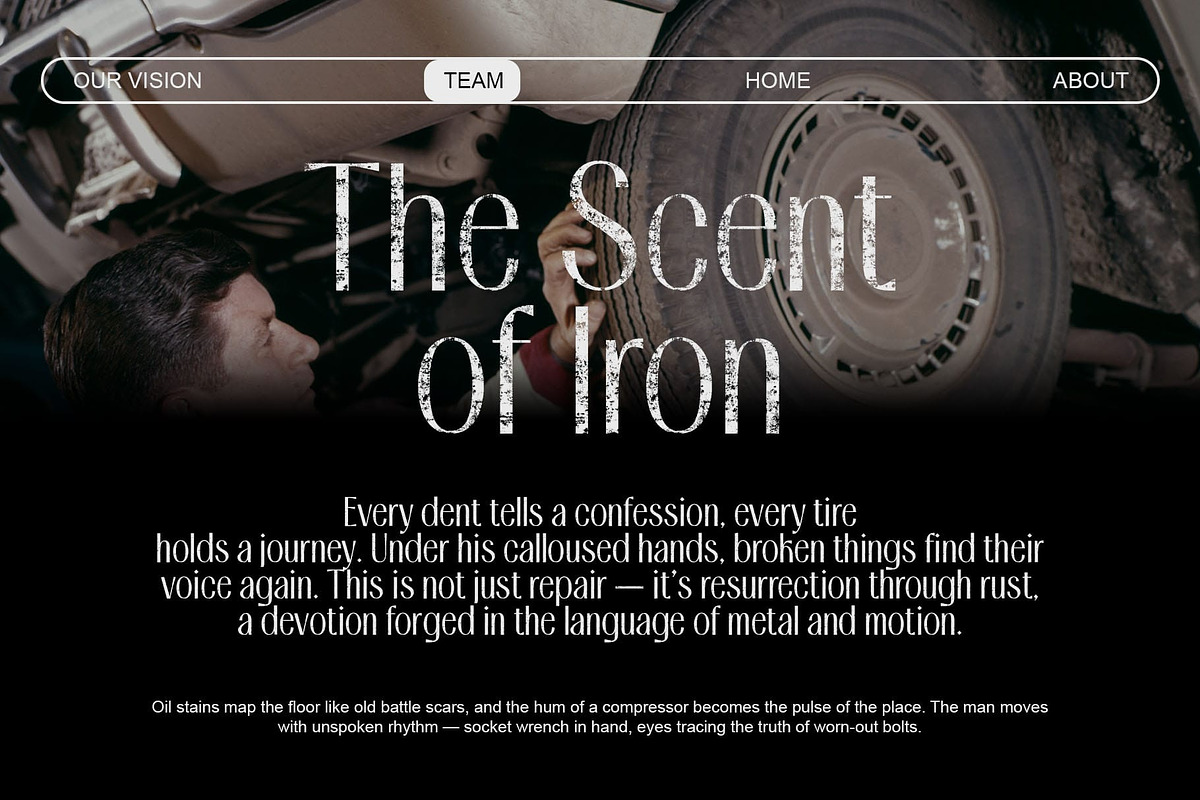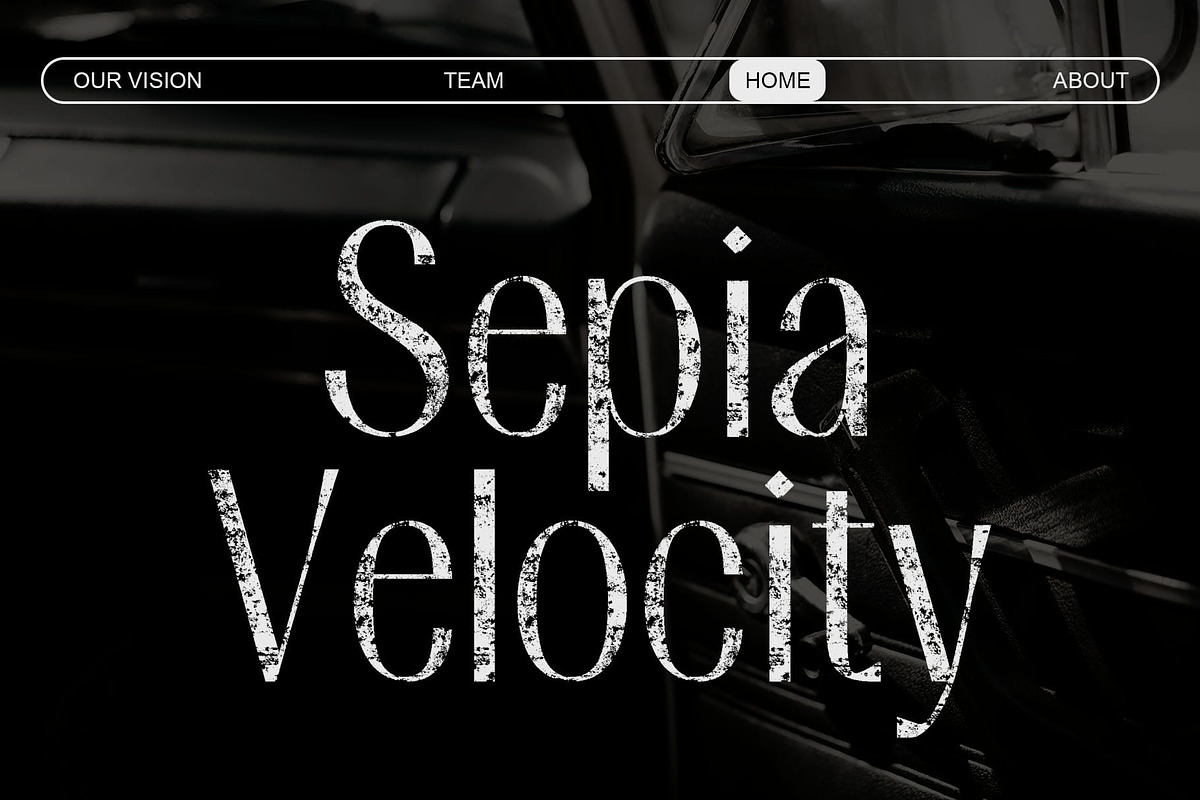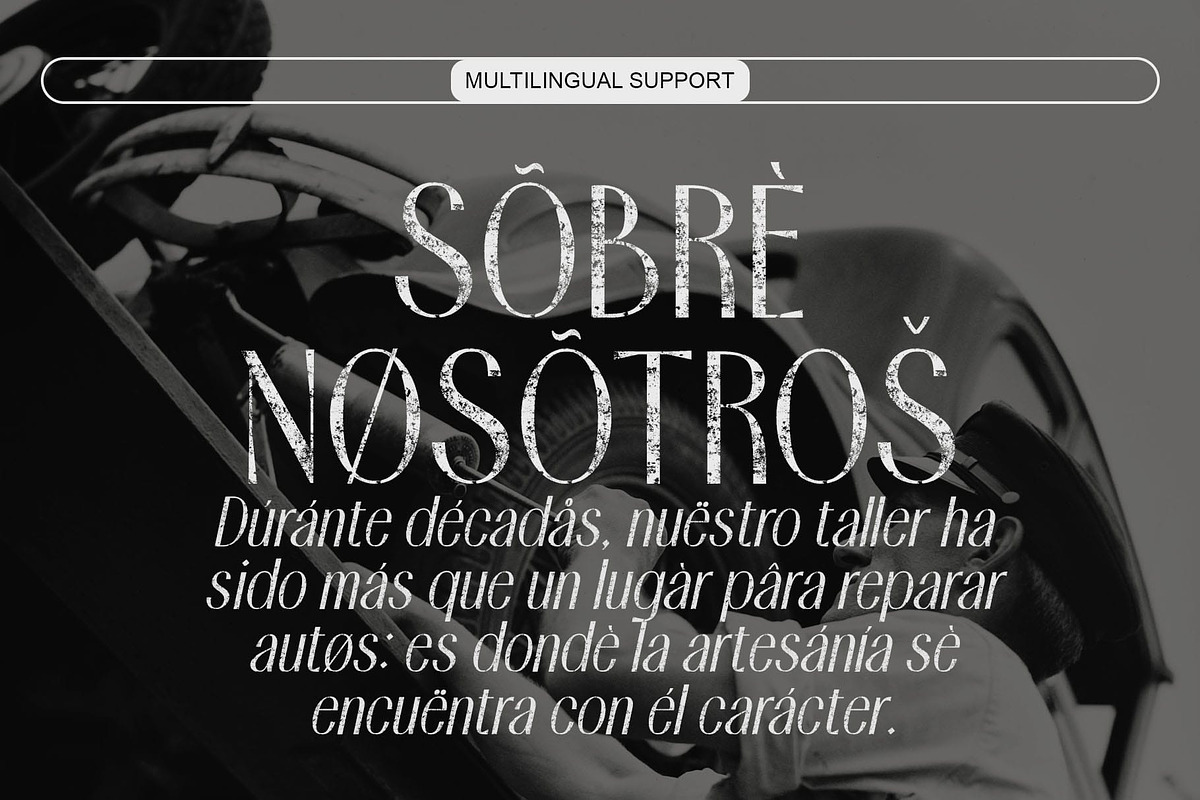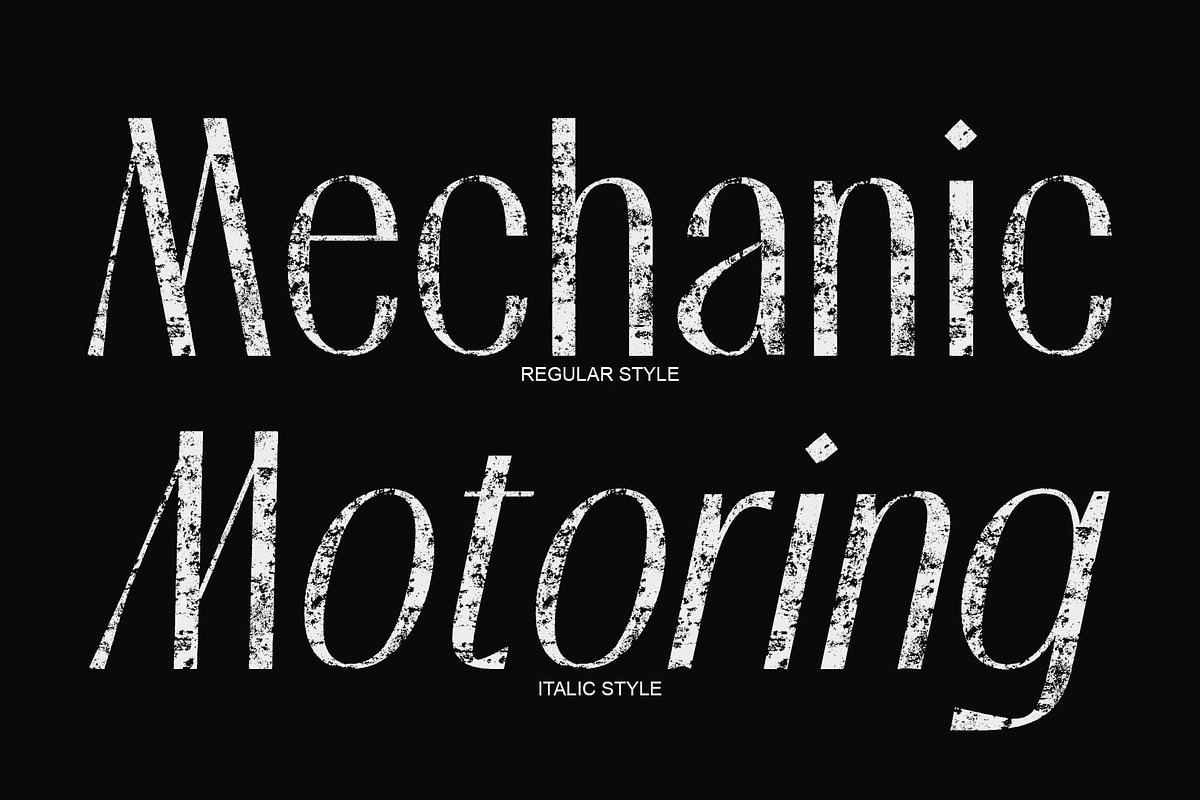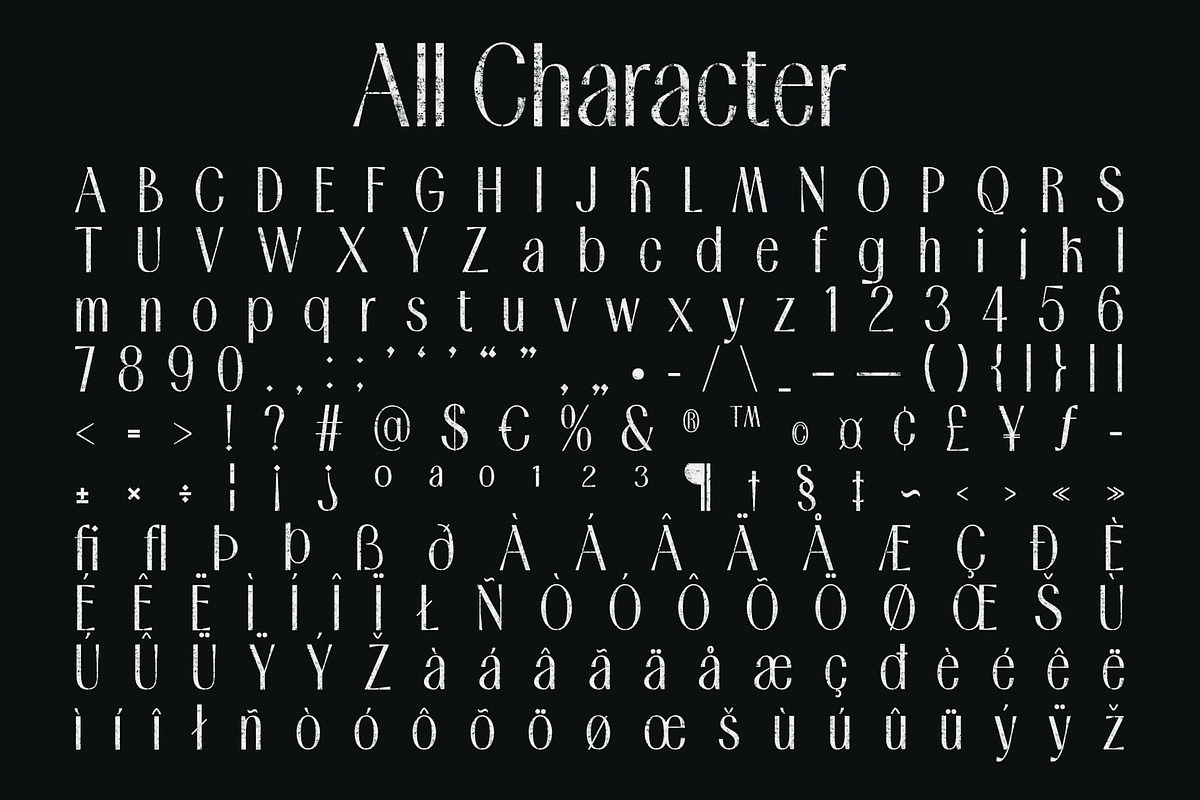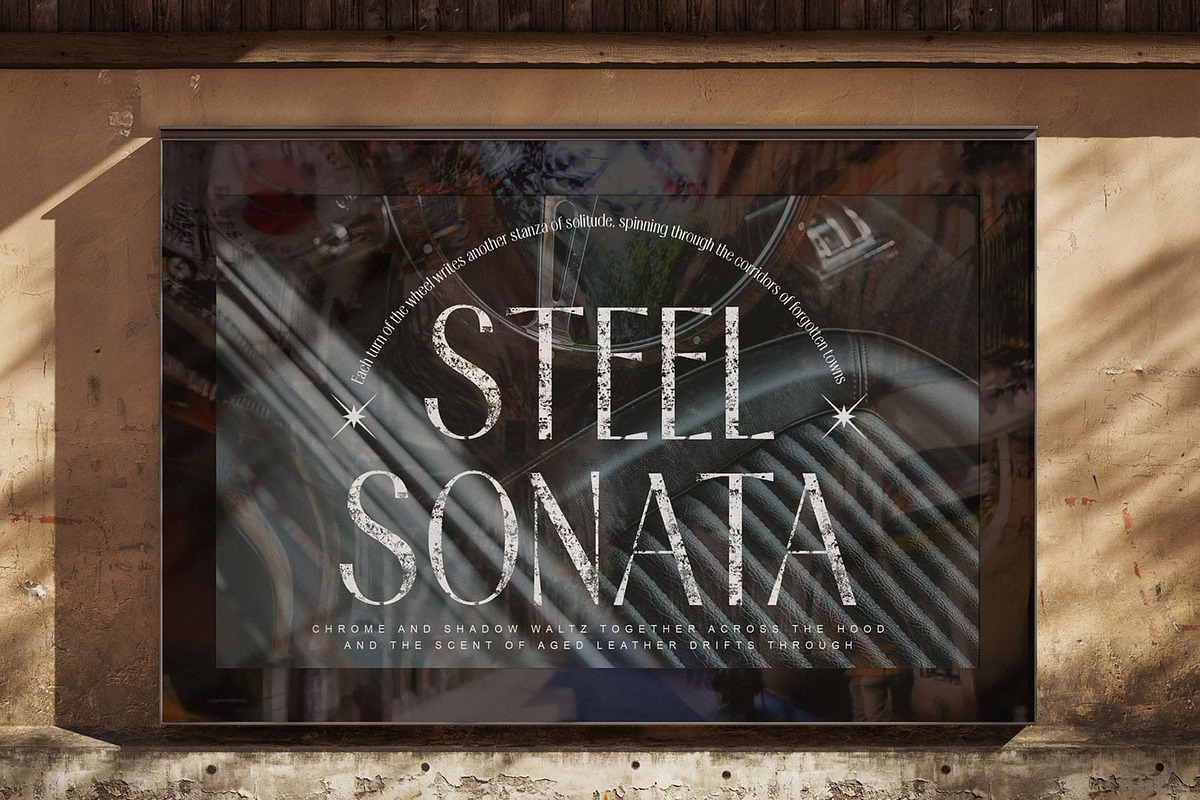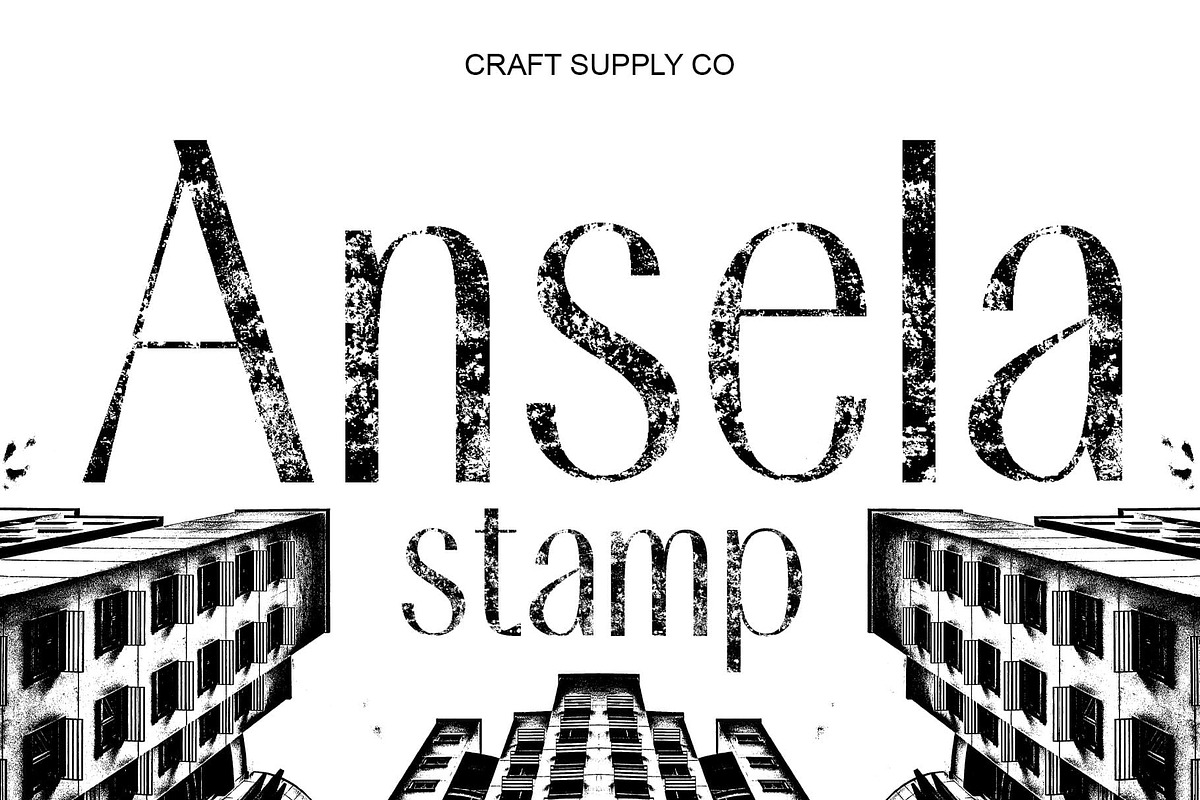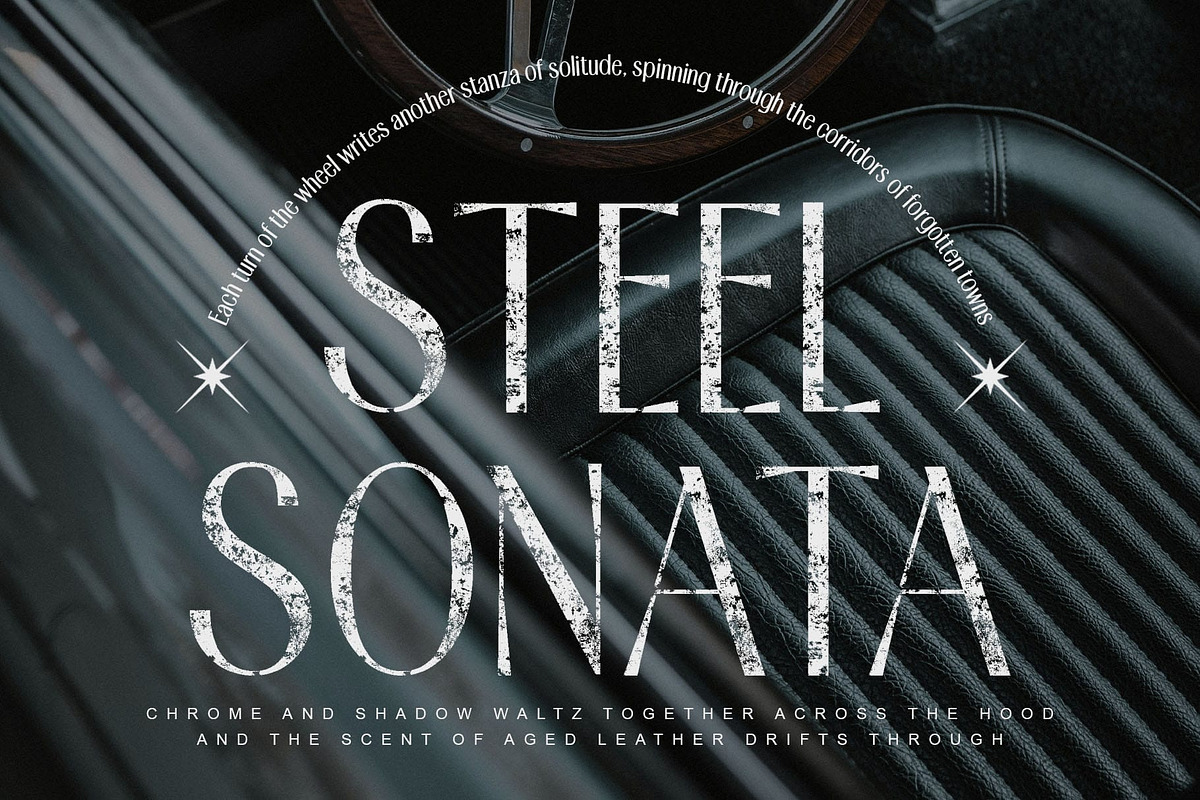
Ansela Stamp
Ansela Stamp – Classic Modern Sans Serif Font with Stamp Effect: Modern Simplicity with Vintage Character
Clean Lines and Contemporary Elegance This is a classic modern sans serif font defined by its slender lines and balanced proportions. Designed for clarity and sophistication, it brings a refined, professional appearance that suits a wide range of modern design contexts from sleek branding to editorial compositions.
Stamp Texture for Expressive Personality The stamp effect adds a layer of vintage warmth and handcrafted depth, giving this font its distinctive charm. This subtle texture transforms its clean geometry into something more tactile and expressive, blending precision with organic imperfection.
Versatile for Modern and Classic Applications Perfect for branding, posters, and editorial layouts, this font adapts seamlessly to both minimalist and artistic designs. Its versatility allows it to convey either modern confidence or nostalgic character, depending on the creative direction.
Timeless Balance of Form and Expression This font stands at the intersection of simplicity and personality, combining modern design clarity with vintage authenticity. Whether used for refined corporate work or creative projects, it delivers a harmonious blend of elegance, texture, and individuality.